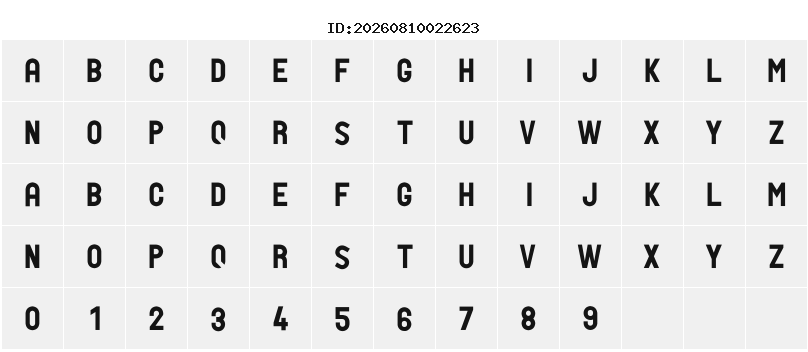
PTF NORDIC Std Preview
• Font Name: PTF NORDIC Std
• Font ID: PTF NORDIC Std
• Full Font Name: PTF NORDIC Std
About PTF NORDIC Std.ttf
PTF NORDIC Std.ttf is a modern, elegant sans-serif font designed for ultimate readability and visual harmony. Perfect for branding, headlines, web design, and print materials.